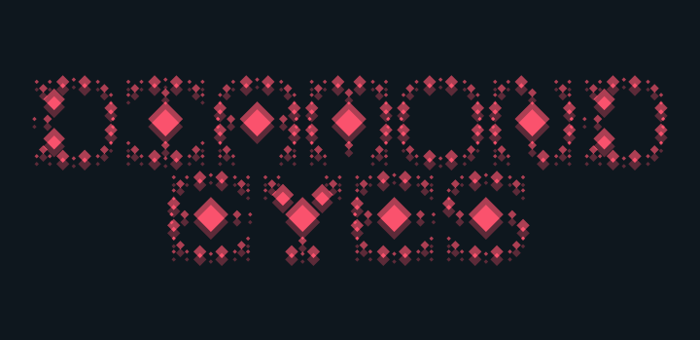
Diamond Eyes Font
About Diamond Eyes Font
I built diamonds sized according to the Fibonacci series, then made a segmented display out of them. The design was then carved away and modified to make the glyphs you see here. I used the members 1, 2, 3, 5, and 8. These sizes proved most feasible to work with in this sort of arrangement.
I gave the terminals a flared appearance which I think makes the glyphs' outlines look slightly Celtic. The design makes me think of beach sand and things found on the beach - shells, pretty rocks, and so on.